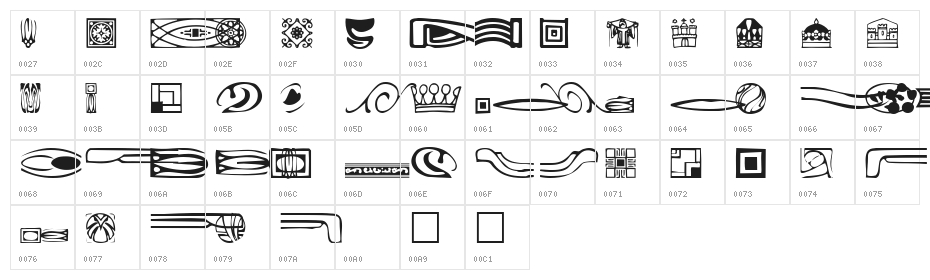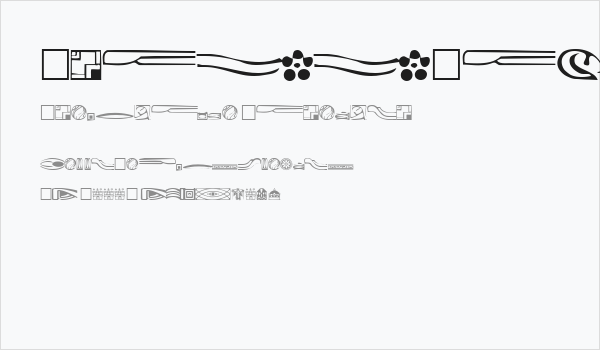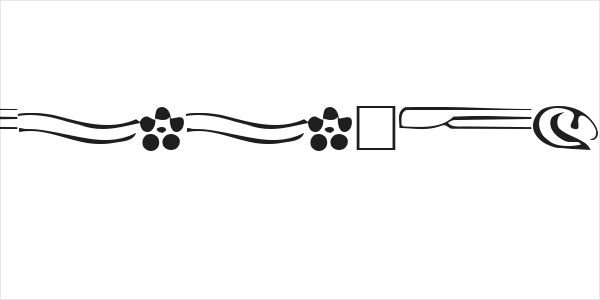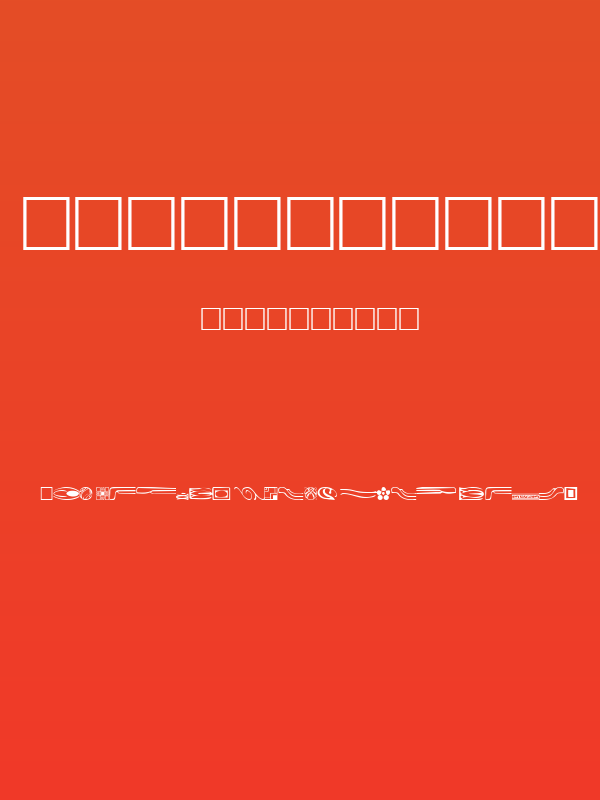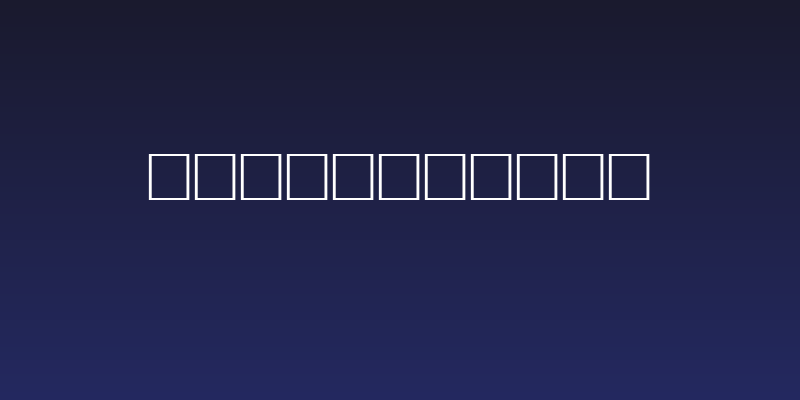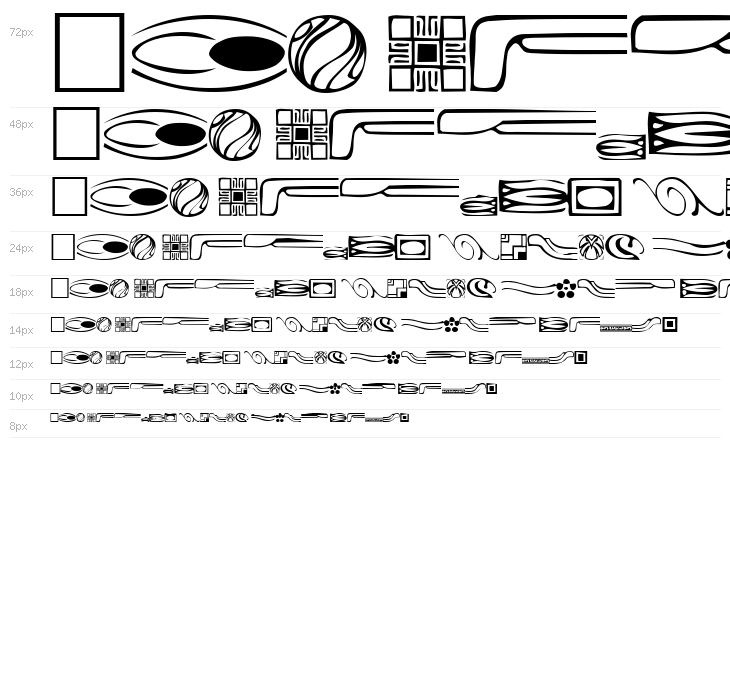
GriffDinReg Font
GriffDinReg Description
This font is a decorative and ornamental typeface featuring intricate and elaborate designs. Each character is represented by a unique and artistic symbol, incorporating elements such as swirls, floral motifs, and geometric patterns. The font is highly stylized, with a focus on visual appeal rather than readability. It includes a variety of ornate symbols that resemble architectural details, abstract shapes, and cultural motifs. The characters are not traditional alphanumeric glyphs but rather a collection of artistic elements that can be used for decorative purposes.
| Use Case | Logos, Decorative elements |
| Proposed Projects | Ideal for decorative projects, such as invitations, posters, or artistic designs where ornamental elements are desired. |